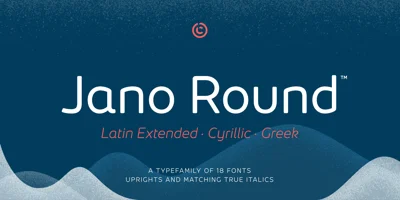
Jano Round Font
Perfect for children's book design, playful brand identities, educational materials, toy packaging, family-friendly websites, pediatric healthcare branding, daycare center marketing, and youth-oriented campaign materials.
This font is exciting because it combines gentle rounded letterforms with contemporary sophistication, creating the perfect balance of warmth and professionalism that appeals to both children and adults in family-focused environments.
Discover the perfect harmony of warmth and professionalism with Jano Round Font, a delightfully crafted typeface that brings gentle sophistication to contemporary design projects. This exceptional font combines the approachable charm of rounded letterforms with modern design principles, making it ideal for organizations seeking to create welcoming, family-friendly communications that maintain professional credibility and broad audience appeal.
Jano Round Font features beautifully rounded letterforms with soft curves and friendly proportions that immediately create feelings of warmth, safety, and approachability. The carefully balanced characters combine playful aesthetics with excellent readability, ensuring optimal performance in applications where creating positive emotional connections and maintaining clear communication are equally important for audience engagement and brand success.
The font's remarkable versatility makes it invaluable for family-oriented businesses, educational institutions, and healthcare organizations where conveying trust, warmth, and professional competence simultaneously is essential for building lasting relationships with diverse audiences. Whether you're designing marketing materials for pediatric medical practices that need to comfort anxious families, creating educational content for early childhood learning programs, or developing brand identities for family entertainment venues, Jano Round Font delivers the perfect balance of friendliness and reliability.
Family-focused businesses and educational professionals worldwide rely on the Jano Round Font for projects requiring approachable sophistication and inclusive appeal. The font works exceptionally well for children's museums creating engaging educational materials, family restaurants developing welcoming brand communications, tutoring services building trust with parents, and any organization seeking to establish connections with families while maintaining professional standards and credibility.
The comprehensive Jano Round Font family includes multiple weights and styles that work harmoniously together, enabling designers to create cohesive brand systems with appropriate hierarchy for diverse family audiences. Each variation maintains the signature rounded character while providing complete design flexibility for complex communications, from detailed educational materials to bold advertising campaigns that capture family attention in competitive markets.
This typeface excels in applications where creating comfortable, non-threatening environments is crucial for audience comfort and engagement success. The rounded letterforms naturally reduce visual tension and create inclusive atmospheres that welcome diverse audiences, making communication more accessible and emotionally resonant for families, children, and community-focused organizations.
Jano Round Font's technical excellence ensures optimal performance across both digital platforms favored by families and traditional print materials common in educational and community settings. The distinctive letterforms maintain their friendly appeal when reproduced on various materials, from school newsletters to large-scale community signage that must welcome diverse populations with appropriate warmth.
The font represents more than typography—it's a bridge between professional communication standards and human warmth, making it invaluable for organizations committed to serving families and communities with genuine care and respect.